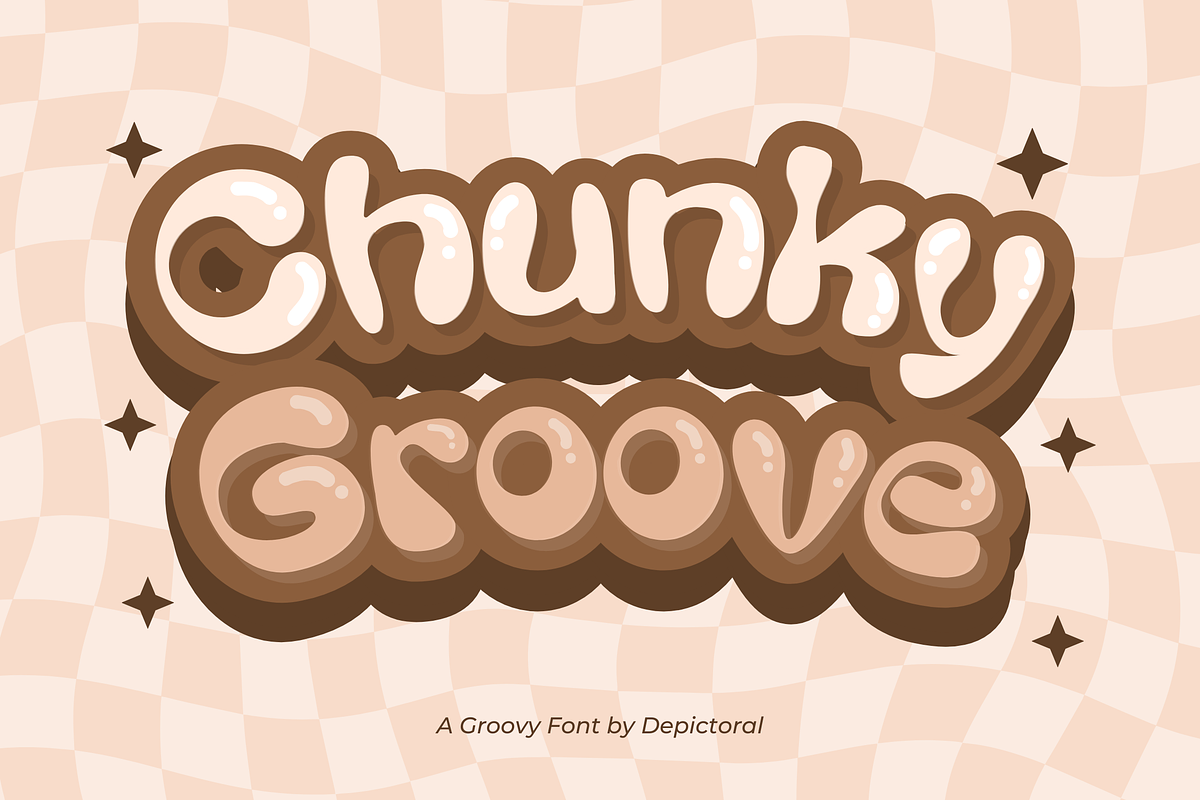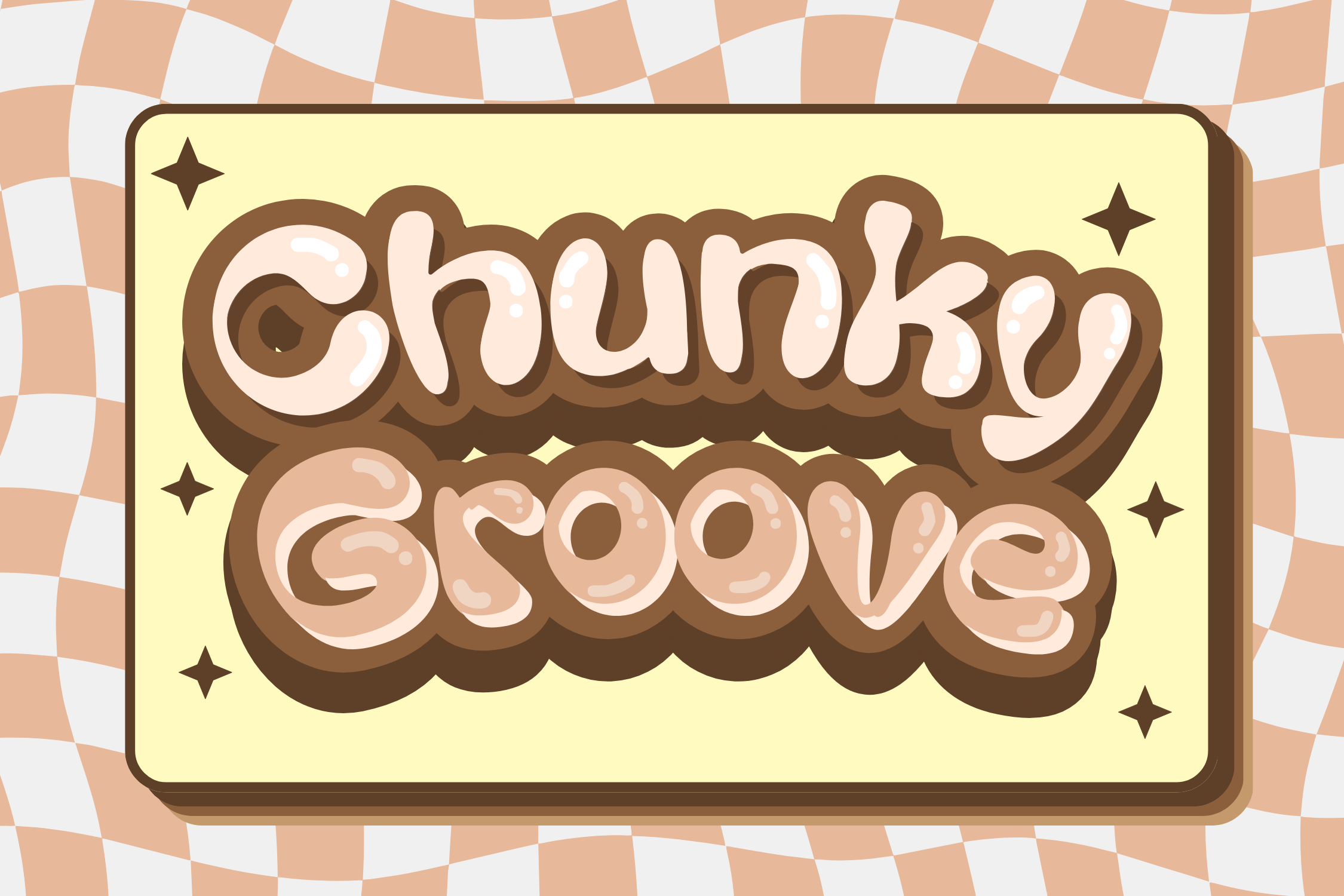
Chunky Groovy Fancy Font
Introducing 'Chunky Groove' Fancy Font
Get ready to bring a burst of fun and flair to your designs with the 'Chunky Groove' Fancy Font! This eye-catching typeface combines boldness with a playful touch, perfect for designs that need a bit of funky personality. With thick, rounded letters, 'Chunky Groove' adds a lively, retro vibe to your projects, making it ideal for creating standout visuals.
Ideal for:
- Music Album Covers
- Party Invitations
- Poster Designs
- Merchandise
- Bold Social Media Graphics
- Bold
- Perfect for Vibrant and Funky Designs